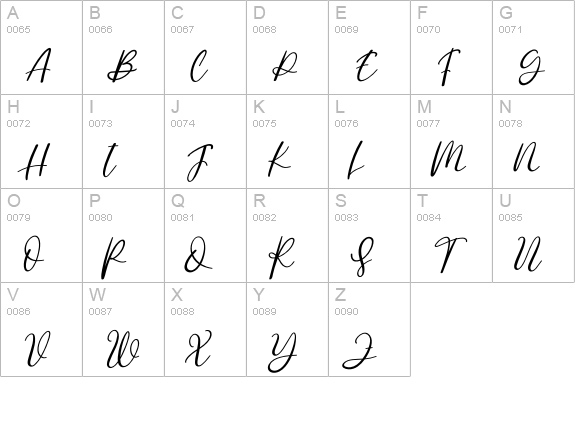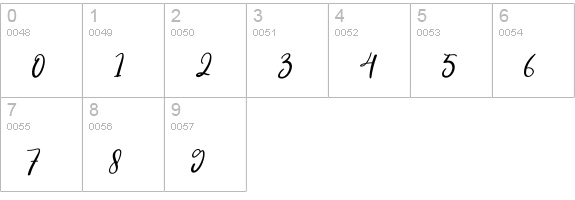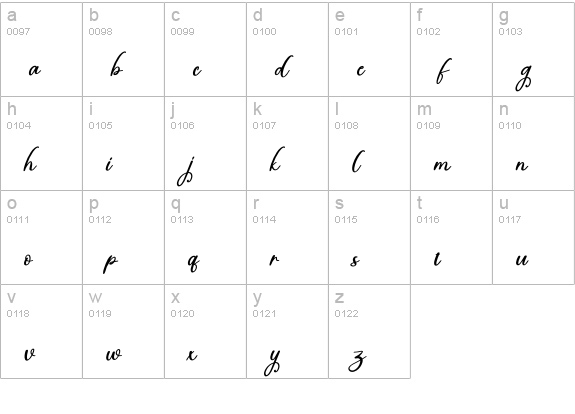
William Smitson Font Details
Introducing the exquisite William Smitson font, a timeless typeface that exudes elegance and sophistication. With its classic yet modern appeal, this font is perfect for a wide range of design projects, from branding to editorial work. The William Smitson font features beautifully crafted letters with a unique charm that will captivate your audience.